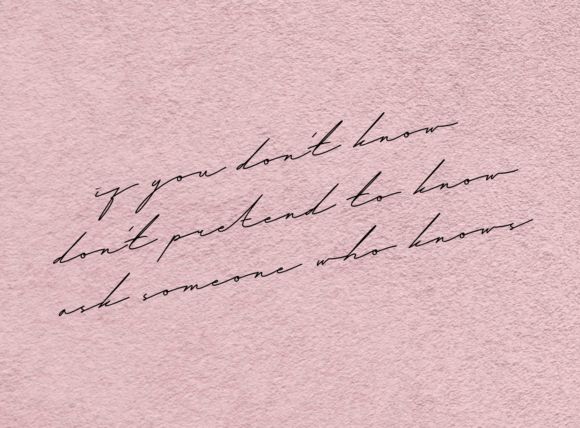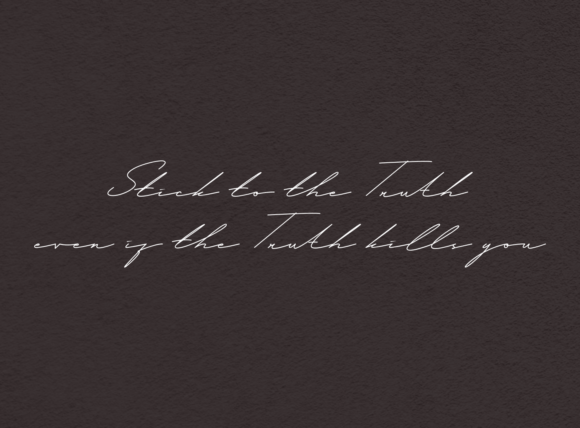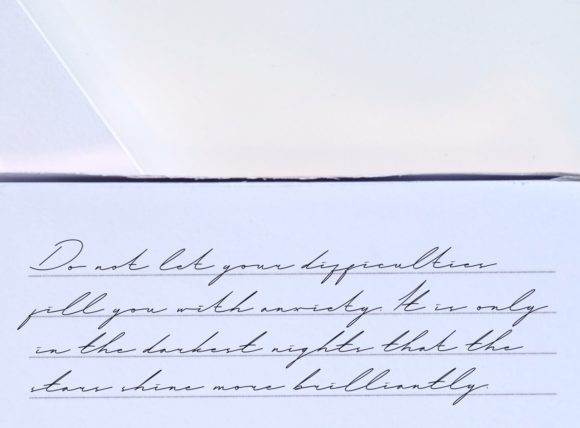
Introduction to Malternal Signature Font
Have you ever been brainstorming ideas for a new project and suddenly, the perfect font pops into your head? For designers, this moment is pure magic. It’s the spark that ignites the entire creative process, setting the tone for the entire project. For me, this moment happened when I stumbled upon the elegant Malternal Signature Font. Its thin lettered and cursive script style caught my eye, and I knew I had to share it with fellow designers.
As a valuable design resource, the Malternal Signature Font offers a classy, modern look that’s perfect for logos, branding, invitations, and more. With its high-quality design, it’s no wonder why many designers are flocking to this font for their creative projects. Whether you’re working on a wedding design, social media post, or simply need a beautiful font for your stationery, the Malternal Signature Font is an excellent choice.
Key Features of Malternal Signature Font
- High-quality design resource for creative projects, offering a unique and elegant touch.
- Includes a range of glyphs and characters, making it suitable for a variety of design applications, from logos to typography.
Honest Review: Malternal Signature Font
As a designer, I’m always on the lookout for high-quality design resources to elevate my creative projects. Recently, I stumbled upon the Malternal Signature Font, and I’m excited to share my honest review.
What works well: ✨ The font’s elegant and sophisticated design makes it perfect for projects that require a touch of luxury. The high-quality graphics and transparent background allow for seamless integration with any design.
Here are some of the font’s key features:
- High-quality graphics for a professional look
Limitations: ⚠️ While the font is excellent for most projects, it may not be suitable for bold or playful designs. The elegant design may come across as too formal for some projects.
Overall, I’m impressed with the Malternal Signature Font. It’s a great addition to any designer’s toolkit, and I highly recommend it for high-end creative projects. With its high-quality design and transparent background, it’s a must-have for any serious designer.
How to Use Malternal Signature Font
The Malternal Signature Font is a high-quality, elegant font perfect for any creative project that requires a touch of sophistication. It features a transparent background, making it easy to overlay on any image or design.
To get the most out of the Malternal Signature Font, try pairing it with a bold font for contrast, or using it in a creative way, such as overlaying it on a background image.
The Malternal Signature Font is perfect for:
Wedding invitations and stationery
Business cards and marketing materials
Photography captions and quotes